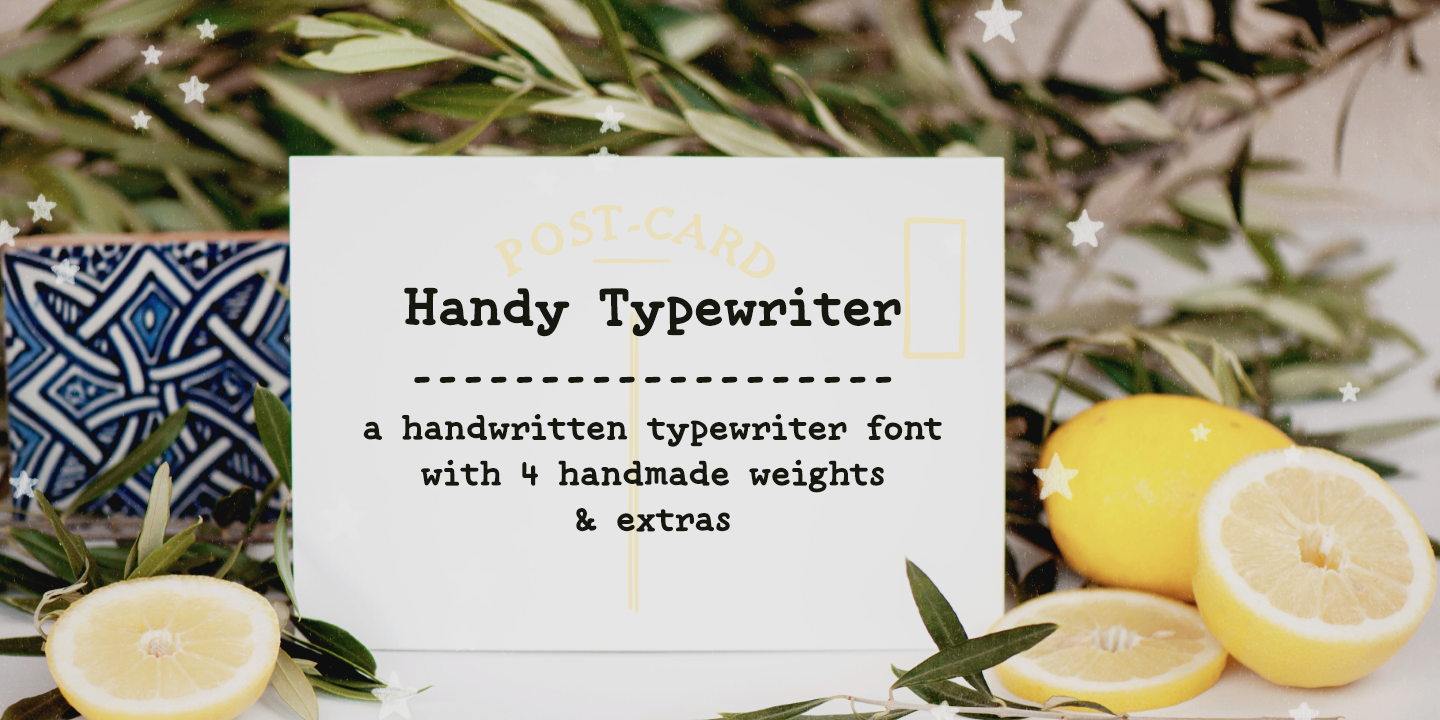
Please note, you must purchase this font for commercial use. You can download Handy Typewriter Font Free Download for testing purposes and appreciate its vintage charm and authentic typewriter style. Handy Typewriter Font is perfect for projects needing a nostalgic touch, including retro branding, invitations, quotes, creative writing projects, vintage-themed advertising, and rustic graphic designs.
This typeface accurately captures the look and feel of traditional typewriting machines, complete with slightly irregular letter spacing and classic textured finishes. Graphic designers and creative professionals frequently choose Handy Typewriter Font Free Download to convey authenticity, warmth, and a sense of handcrafted quality in their designs.
Handy Typewriter Font maintains readability while offering an attractive vintage aesthetic suitable for digital and print mediums alike. Its versatile nature makes it ideal for storytelling projects, historical references, artistic ventures, and any creative work aiming to evoke the charm of a bygone era.
By downloading Handy Typewriter Font Free Download, you can freely experiment with its unique characteristics, ensuring it meets your design needs before investing commercially. The font provides multilingual support, enhancing its usability for international and diverse projects.